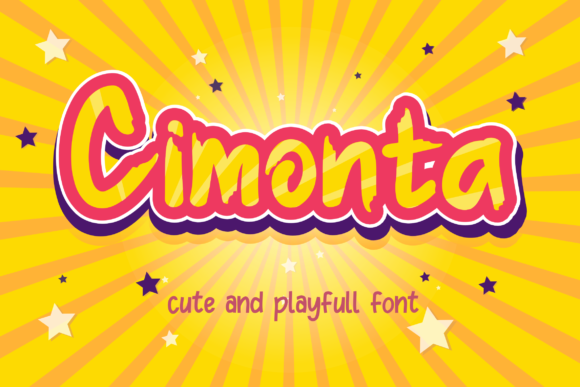
Catching the Eye with Cimonta Font
Have you ever stared at a blank design canvas, feeling stuck and unsure of where to begin? That’s when the magic happens – the moment when a single font can elevate your entire design and transport it to new heights. For designers, this moment is all about finding the perfect combination of style and functionality. Enter the Cimonta Font, a cool, brushed, and fun display font that’s sure to catch your eye.
This versatile font is designed to suit a wide variety of designs, from playful social media graphics to elegant branding materials. Its neat and simple style makes it an ideal choice for designers looking to add a touch of sophistication to their work. With its endless possibilities, the Cimonta Font has the potential to become your go-to font for any occasion, making it a valuable addition to any designer’s toolkit.
- Unique Characteristics: Cimonta Font features a unique blend of modern and traditional design elements, with a focus on legibility and readability.
Cimonta Font Review
I’ve had the chance to work with the Cimonta font, and I must say it’s a unique and interesting typeface. Here’s my honest review:
- Unique character set: Cimonta has a distinct set of characters that will add a touch of personality to any design.
- Good for display use: The font looks great in large sizes and is perfect for headings, titles, and other display text.
- Works well for creative projects: Cimonta’s quirky charm makes it a great fit for creative projects, such as advertising, marketing materials, and editorial designs.
- Not suitable for body text: While Cimonta is great for display use, it’s not the best choice for large blocks of body text due to its irregular spacing and character shapes.
- May be difficult to read: The font’s unique character set and irregular spacing can make it difficult to read, especially for those with visual impairments.
Cimonta is a great choice for designers looking to add some personality to their projects. While it may have some limitations, its unique character set and display-friendly design make it a great fit for creative projects. With careful use and consideration, Cimonta can add a touch of whimsy and charm to any design.
To get the most out of Cimonta Font, use it for headings and titles to add visual interest to your designs. Experiment with different font sizes and styles to create a unique look. Cimonta Font pairs well with bold and sans-serif fonts for a modern aesthetic.
Cimonta Font is commonly used for:
- Creating visually appealing headings and titles
- Designing custom logos and graphics
- Creating presentations and documents with a modern aesthetic